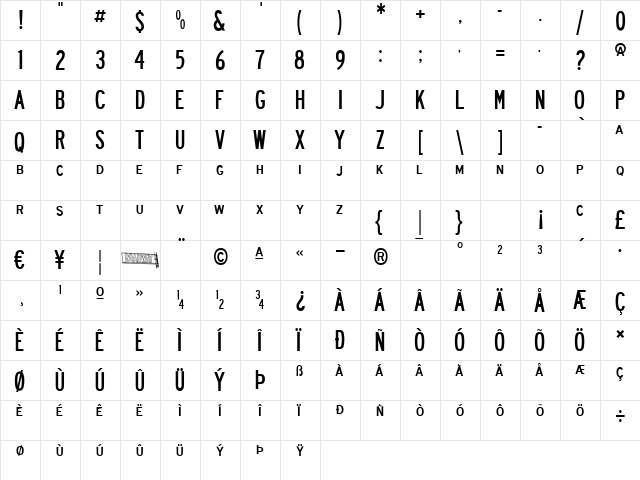
Roadway Regular
Design Context for Roadway Typeface
Roadway is a composed and adaptable typeface that performs quietly and consistently across a wide range of design contexts.